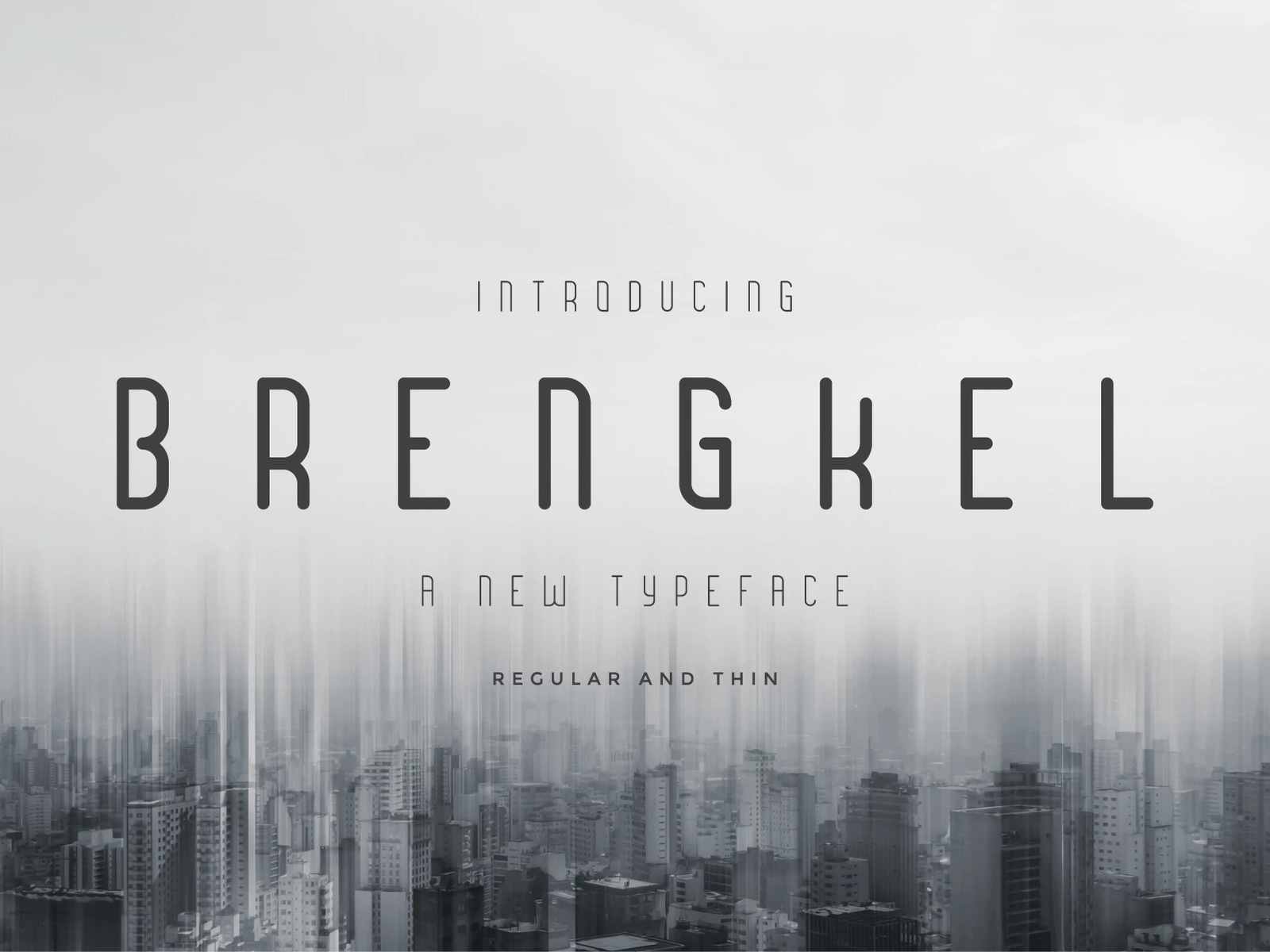
Brengkel - Condensed Font
Brengkel Font is suitable to use for any kind of design such as branding projects, logo, wedding designs, social media posts, advertisements, product packaging, product designs, label, photography, watermark, invitation, poster, t-shirt design, stationery and any projects.